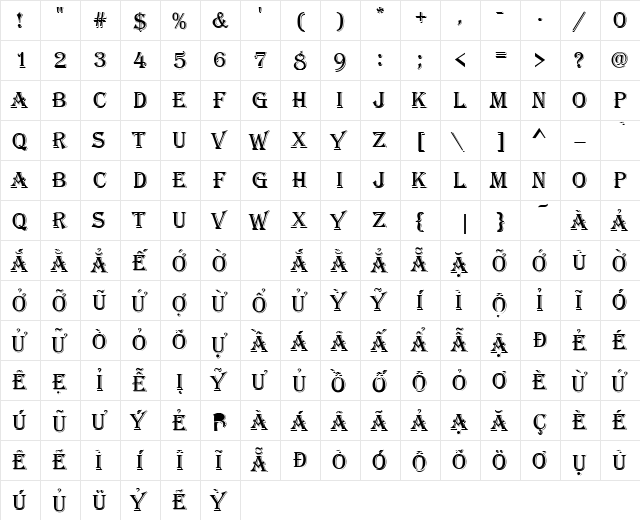
VPS Ninh Thuan Hoa Normal
VPS Ninh Thuan Hoa takes a measured approach to typography — its balanced proportions and neutral character make it a reliable workhorse for both digital and print work.